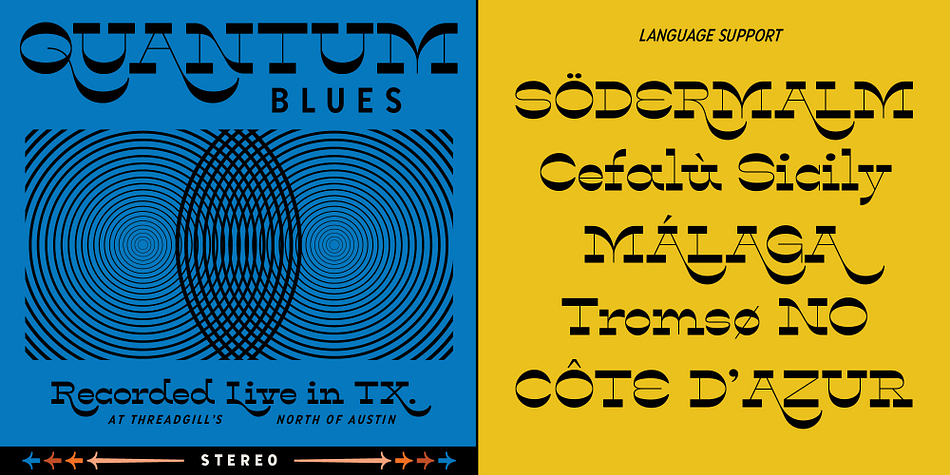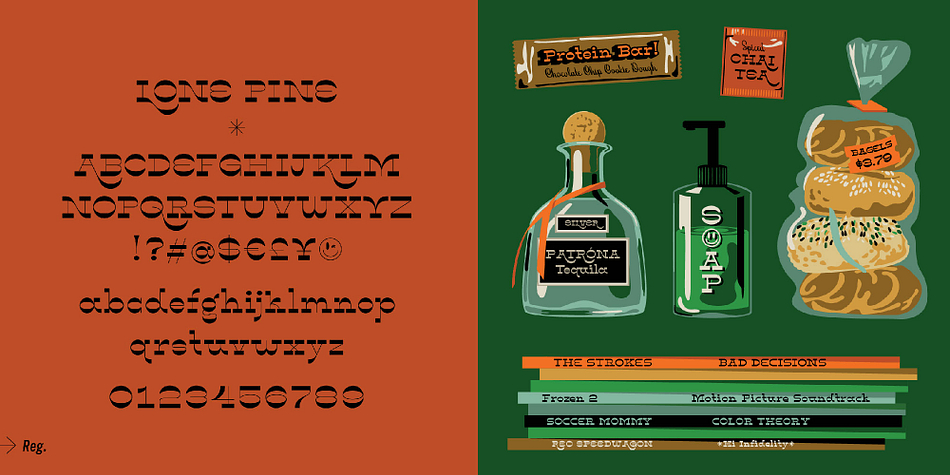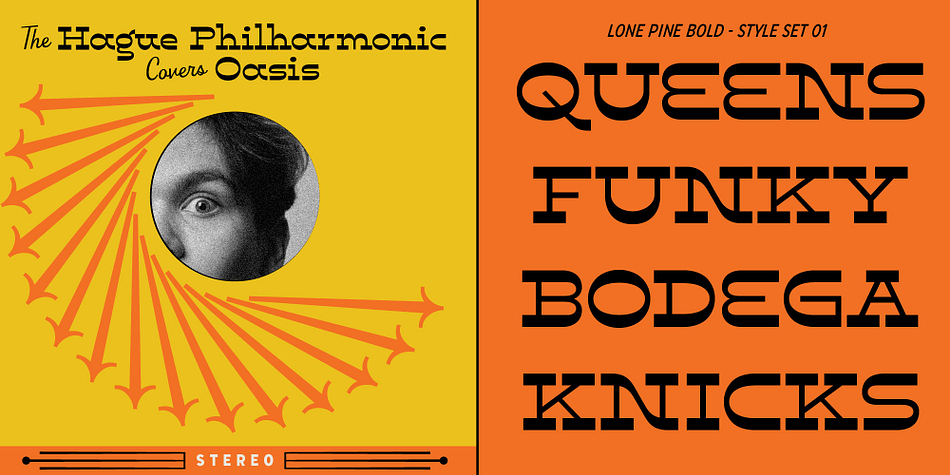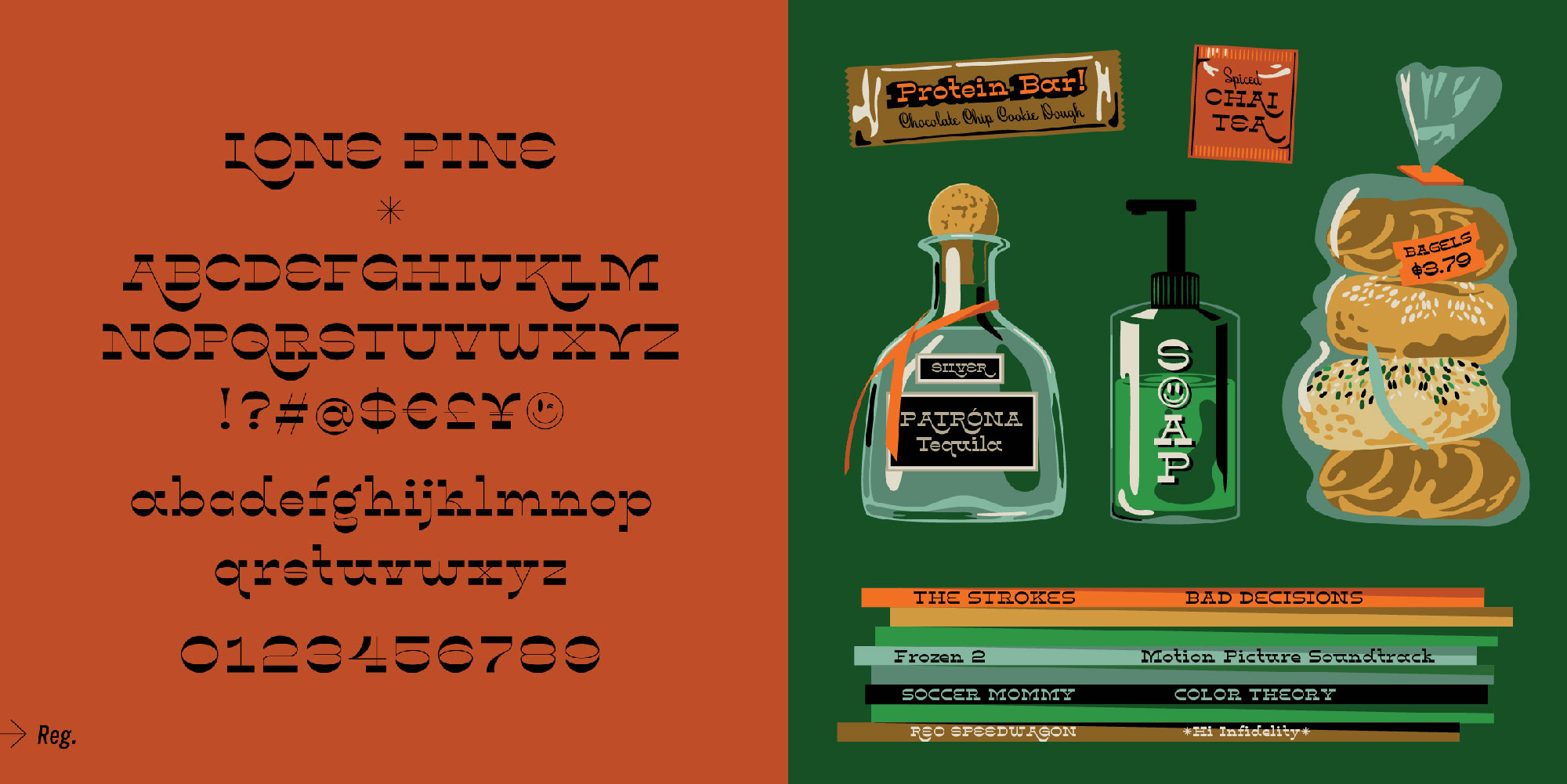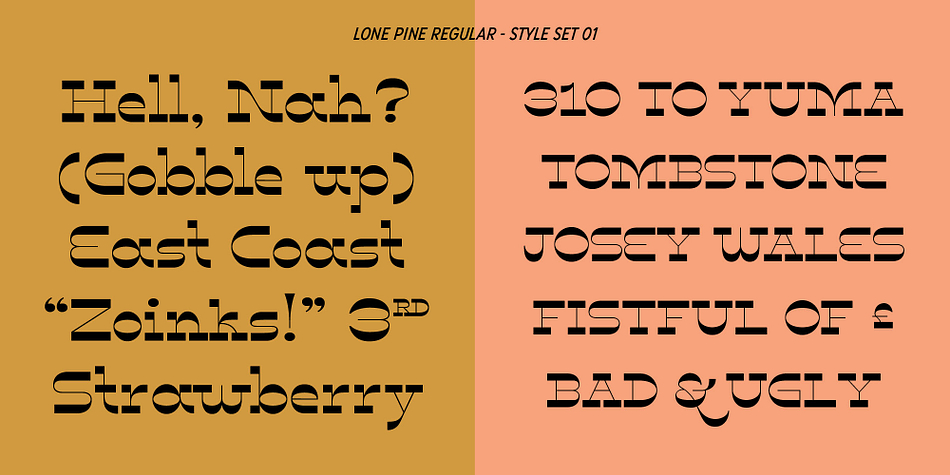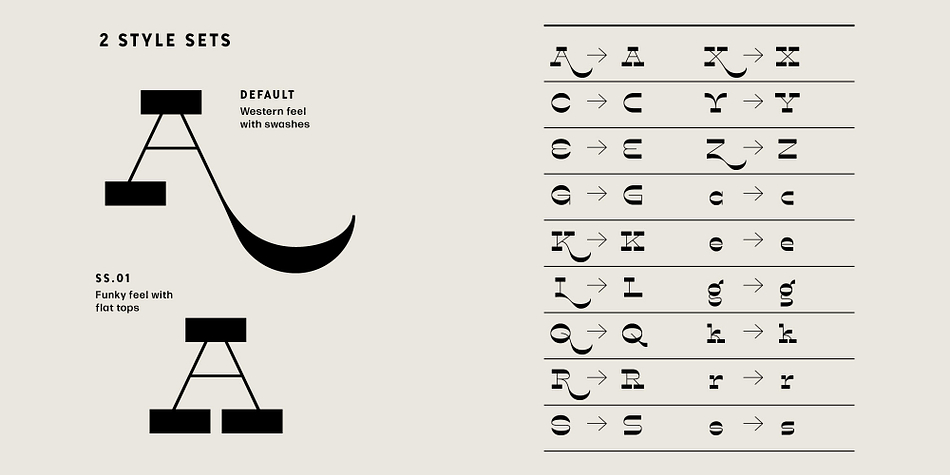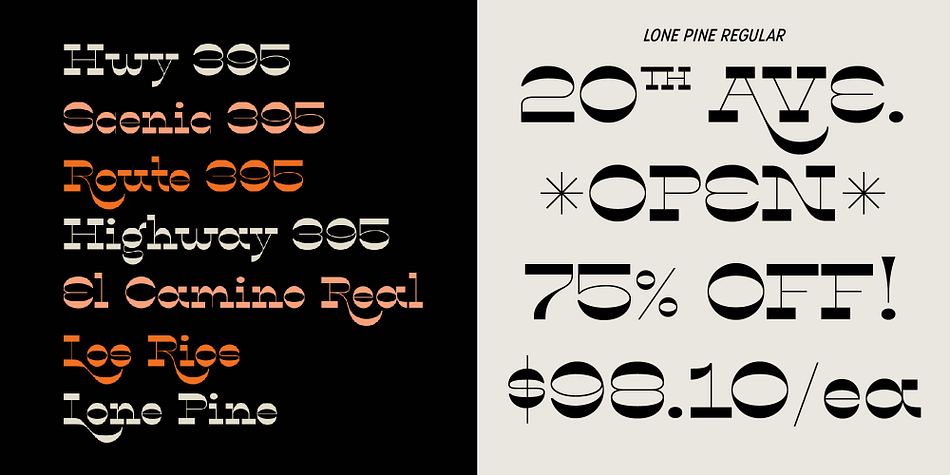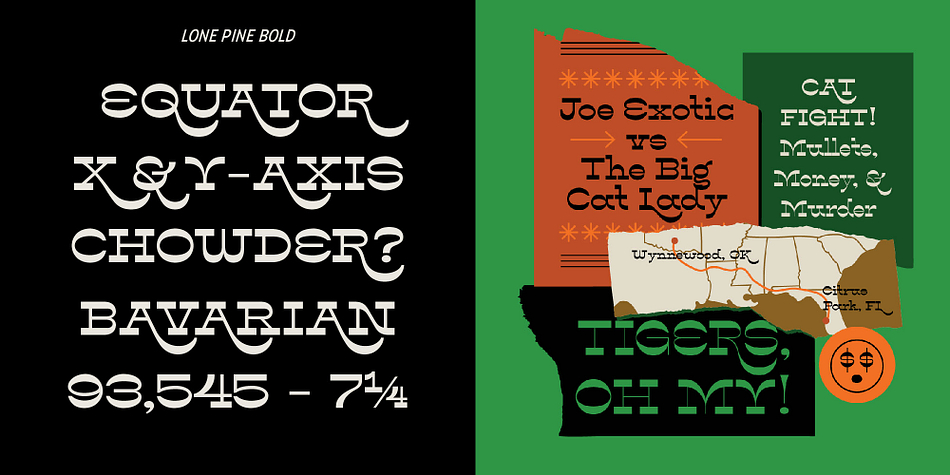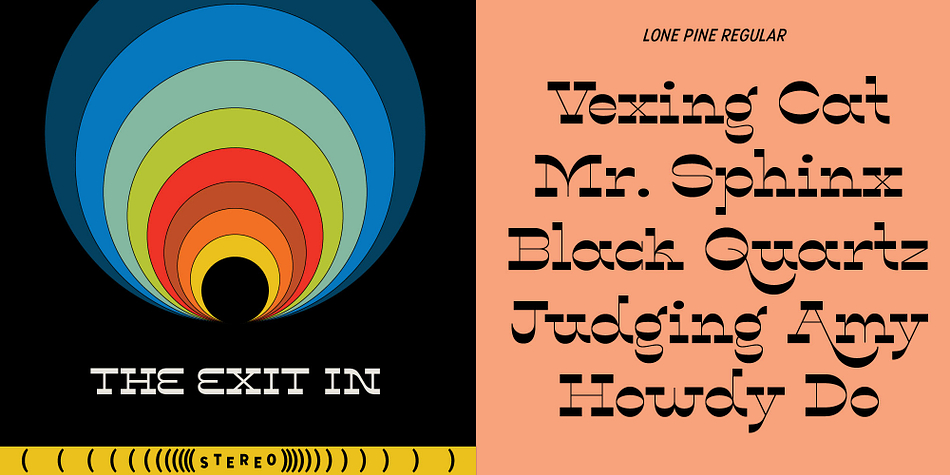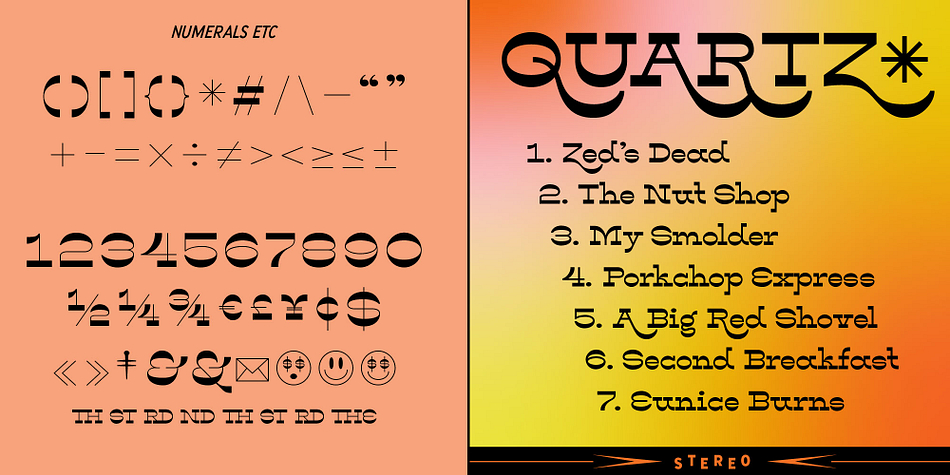
Lone Pine
Designed by Amy Hood, Lone Pine is a western font family. This typeface has two styles and was published by Hoodzpah.
Lone Pine font by Hoodzpah is a reverse contrast serif typeface with 110% zazz and juuj. It’s inspired by Route 395 in California, which runs along the Eastern Sierra Nevadas; And by the many towns scattered along the way, namely Lone Pine, CA at the base of Mt. Whitney. This display font is super high contrast, and features big swashes for immediate wow factor. Turn on style set 01 for a more 70’s sci-fi look.
Standard Latin Characters.
Numericals & Fractions.
Mathematical, Punctuation, and Currency Symbols.
Tons of extras like Arrows and Smiley Faces.
2 style sets: (standard w/swashes) and SS.01 (w/out swashes).
2 weights: bold and regular.
Typeface Design: Amy Hood, Hoodzphah, Inc.